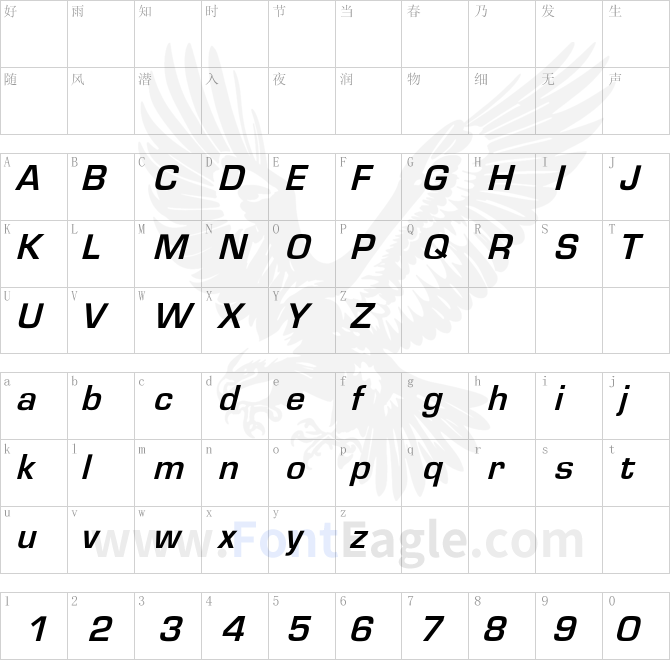
- Font name:EurostileObl-Bold
- Font Subfamily ID:ALLTYPE:EurostileObl-Bold Regular:MIKE
- Font Full Name:EurostileObl-Bold
- Postscript:EurostileObl-Bold